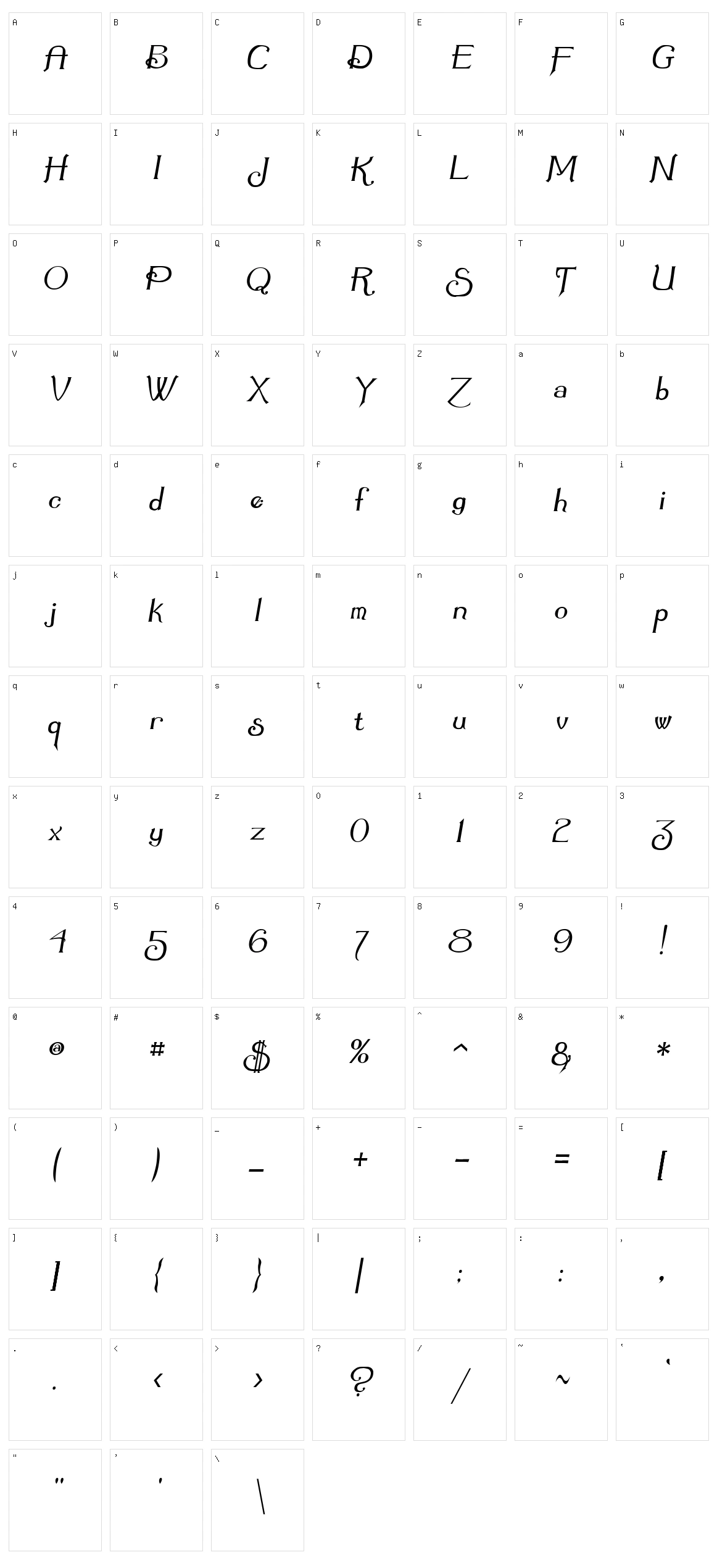
This font, Summertime, was originally created for a splash page I never got around to making. Maybe next summer... Like all my fonts, here I have consciously aimed at a handmade look, with rough edges here and there and elements which go together but don't precisely match. This particular font is not a replica of any specific lettering style; it's just what came out of my digital pen while I was thinking about a nostalgic concept. It is meant to evoke the voice of hand-drawn illustration and poster advertising alphabets from the late 19th-early 20th century, but even more the 1960s-70s craft-fair-and-flower-stand hand-rendered revivals of those alphabet styles, which hold special summertime memories for me from my childhood.
At some point, I hope to add to this family a set of highly decorated capitals and another set of complementary dings. I don't know when I'll get around to those; I only have one letter drawn in the decorated caps set at this point, and maybe two or three of the dings.
There are no Cyrillic characters and only very few Greek characters. This is because I don't speak Russian or Greek and don't feel comfortable trying to mess with symbols I don't really know intimately. The Greek characters here are ones I find myself using often.